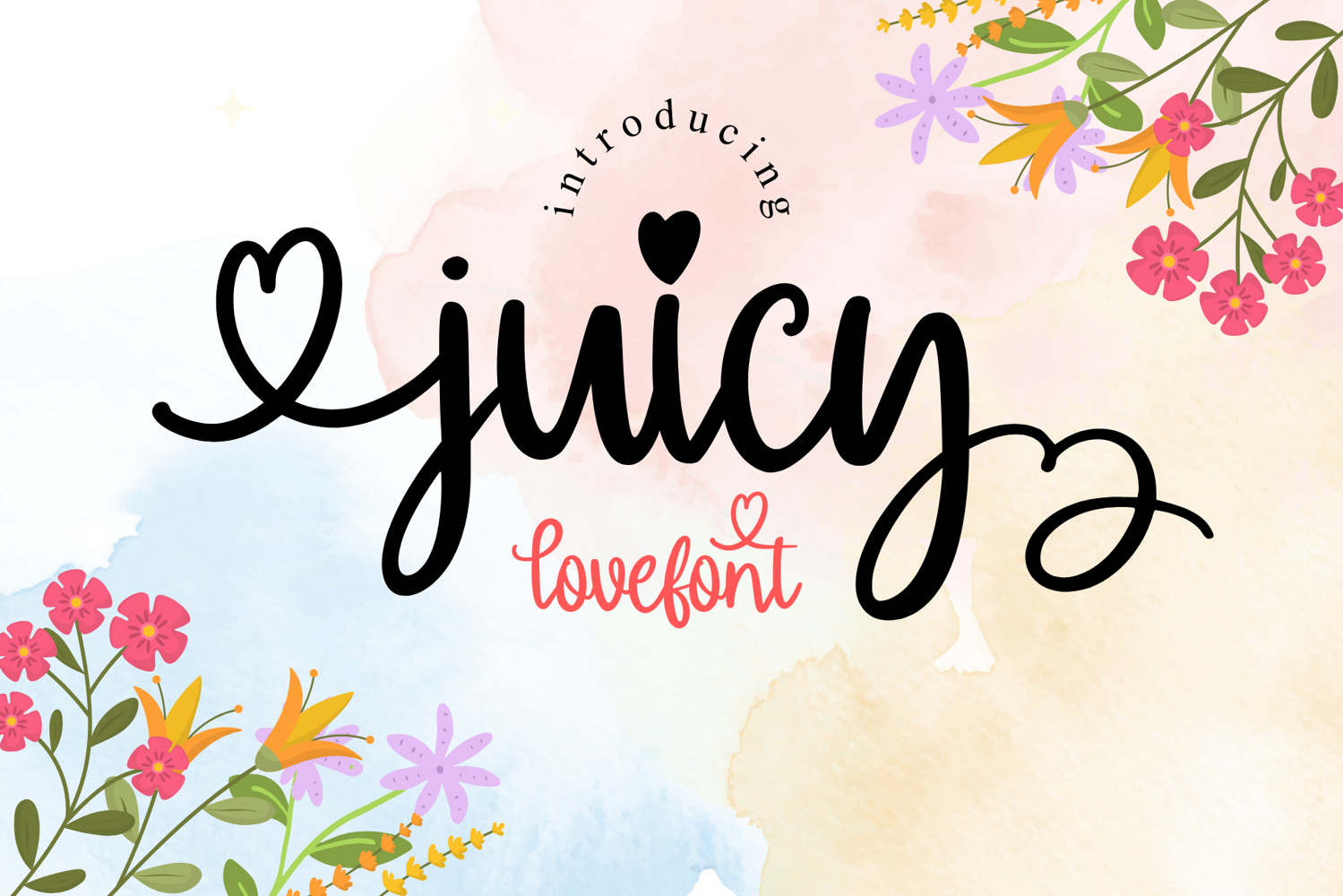
juicy love font
Juicy Love is a sweet, playful handwritten script font with a bold, juicy stroke and a romantic touch.
Designed with smooth curves, bouncy lettering, and lovely heart details, this font brings warmth to every design.
Perfect for branding, quotes, wedding invitations, social media posts, stickers, logos, packaging, and anything that needs a fun and loving vibe.
Juicy Love feels cheerful, modern, and full of charm—just like love itself 💕
Add a cute, feminine, and joyful feel to your designs with Juicy Love.